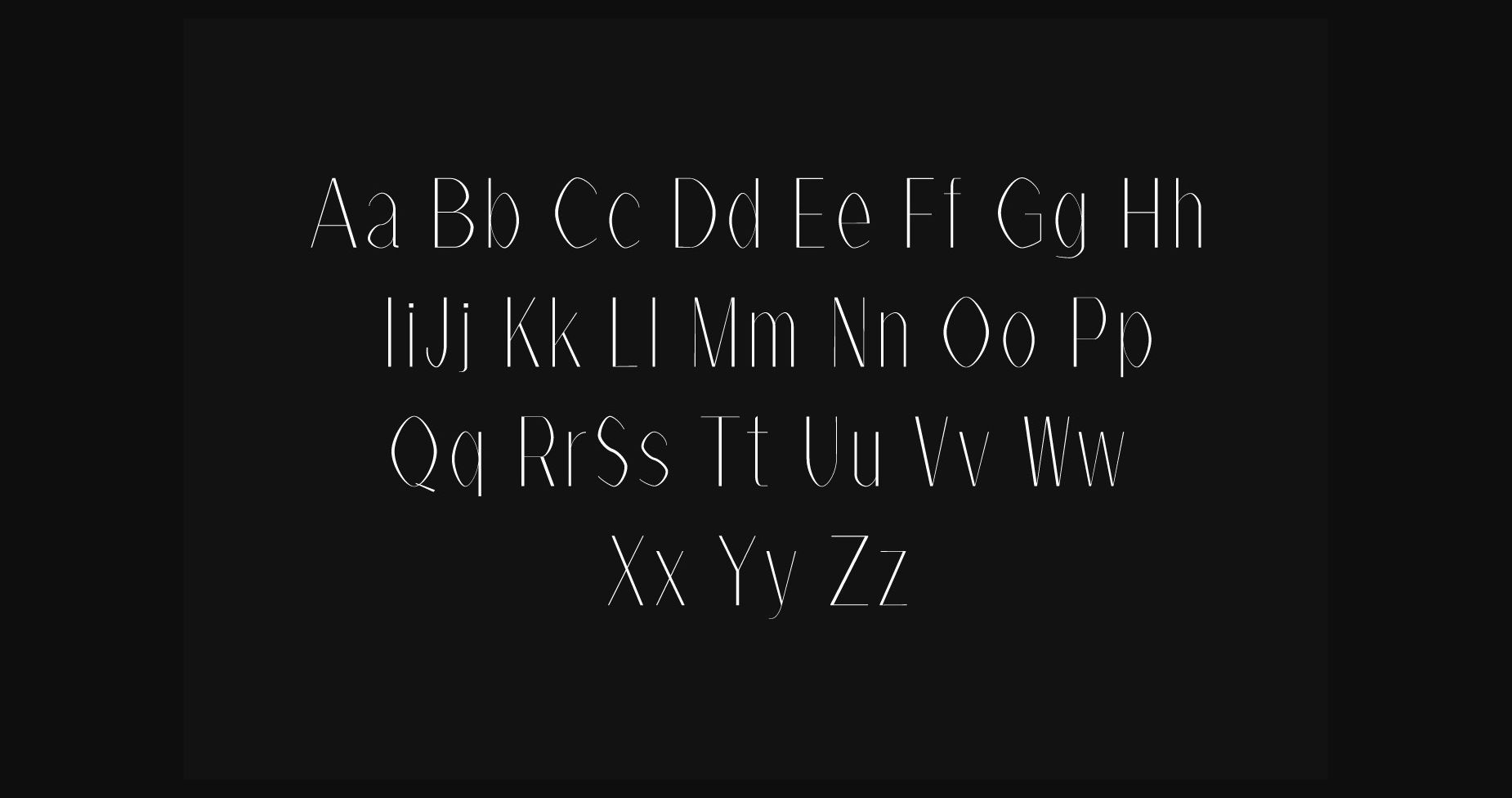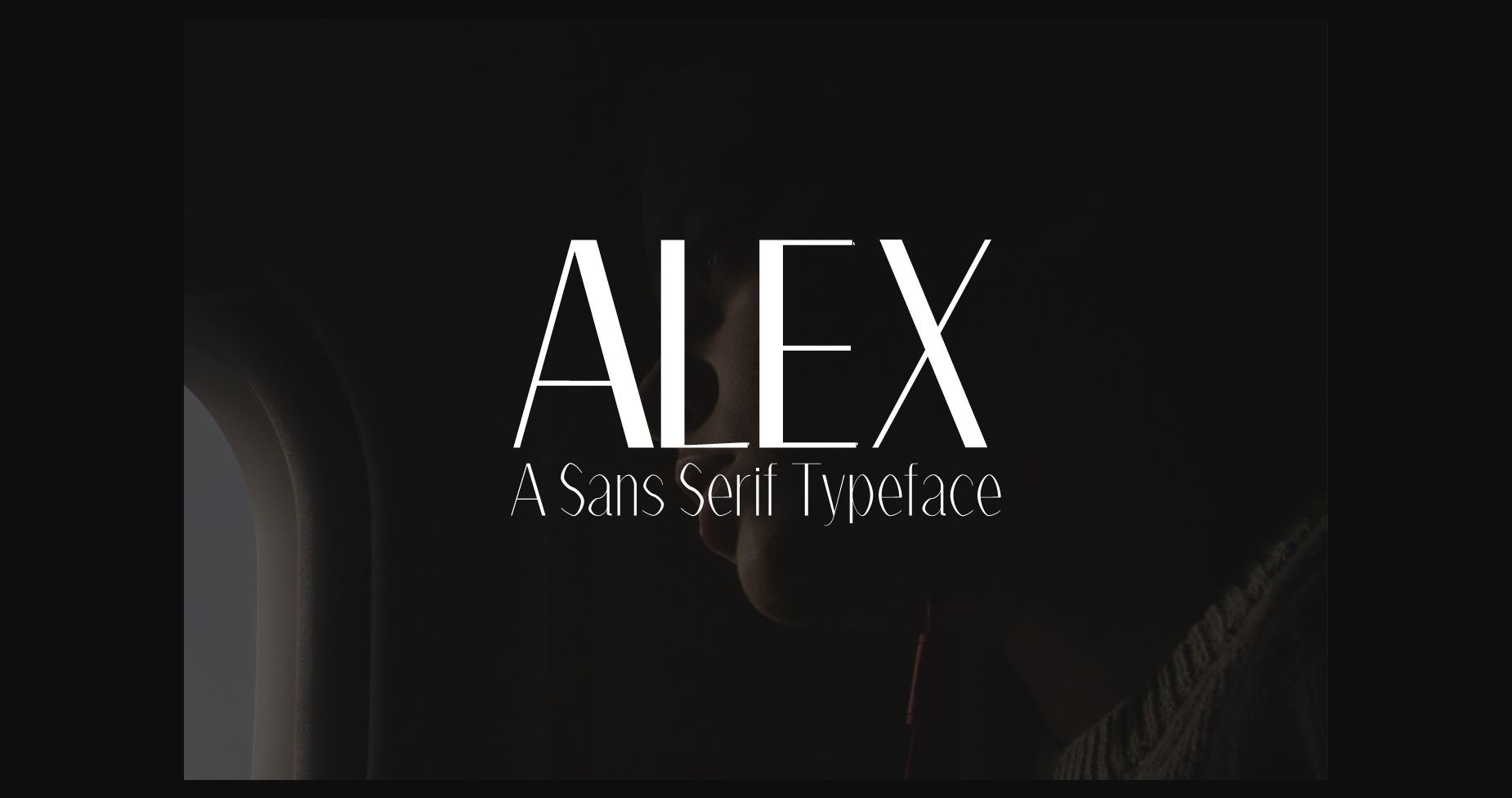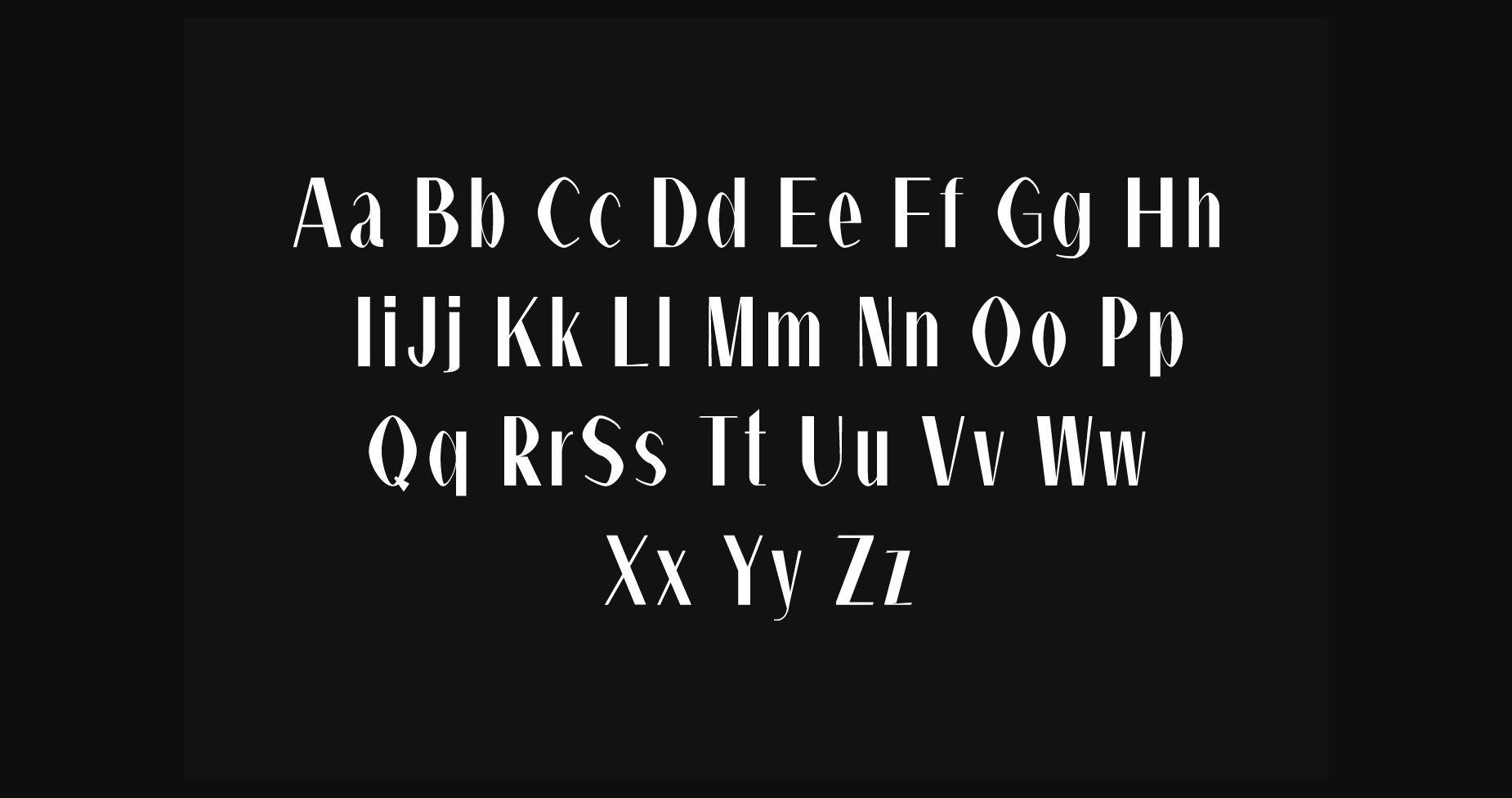
About Alex Family Font
Alex is a unique and modern sans serif font family. With its beautiful and timeless characters, this typeface is a great option for magazine covers, book covers, creative displays, logo designs, and many more creative projects!